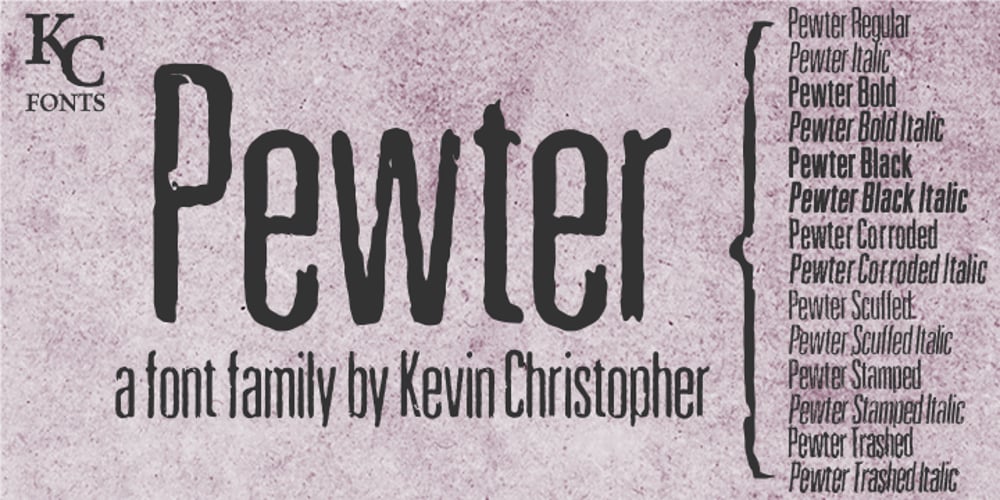
Pewter Font Family was designed by Kevin Christopher and published by KC Fonts. Pewter contains 14 styles and family package options. KC Fonts would like to present its latest creation: Pewter. Pewter is a three weight font (including italics) with four grungy family members (also with italics) for a total of 14 OpenType/TrueType fonts. The Pewter family allows you to freely mix and match between the weights and the grunge variants as it’s not just the same erosion over and over. The Original Trio: Regular, Bold & Black – they’re perfect for your more front page useage and anywhere you need a more traditional look. The Grunge Family: each is different from one another – there is Corroded for the caked on dirty look, Scuffed for a mild abrasion with a worn and washed feel, Stamped for printing press & your rubber stamp effect and Trashed for a destroyed (but not over the top) look to your work. It looks great in all cases: UPPERCASE, lowercase, Title Case & MiXeDcAsE, whether it’s printed LARGE or small it will look great!